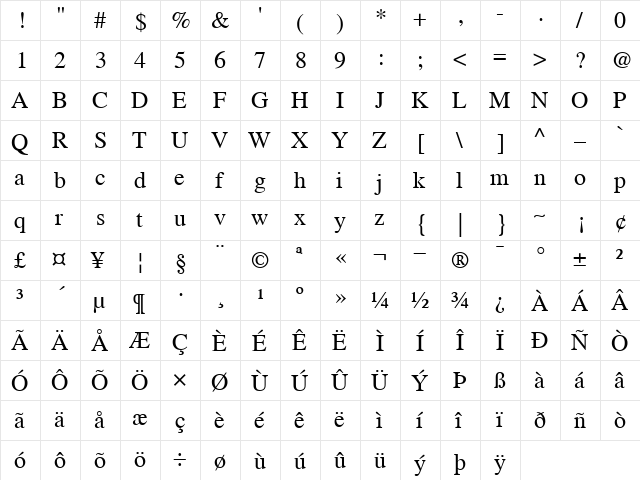
TimesRoman Roman
Design Context for TimesRoman Typeface
TimesRoman is a composed and adaptable typeface that performs quietly and consistently across a wide range of design contexts.
Pro Tip: Use TimesRoman in both headline and body roles to test its range before committing to a single application.